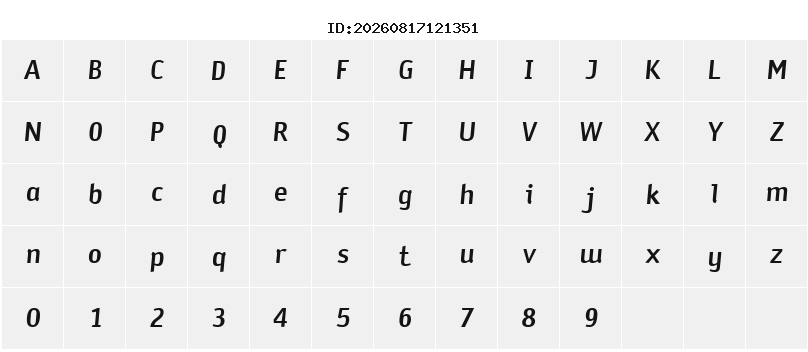
Sodium Preview
• Font Name: Sodium
• Font Style: Medium Italic
• Full Font Name: Sodium-Italic
• PostScript Name: Sodium-Italic
About Sodium.ttf
Sodium.ttf is a modern, elegant sans-serif font designed for ultimate readability and visual harmony. Perfect for branding, headlines, web design, and print materials.